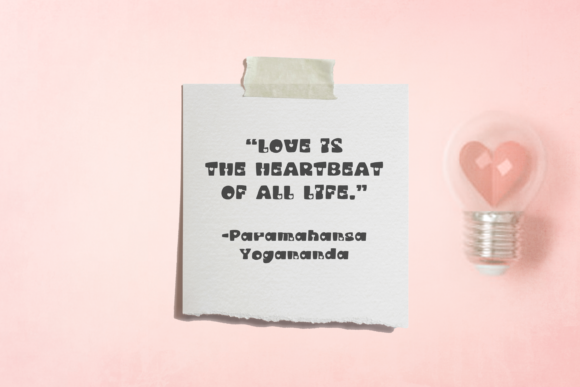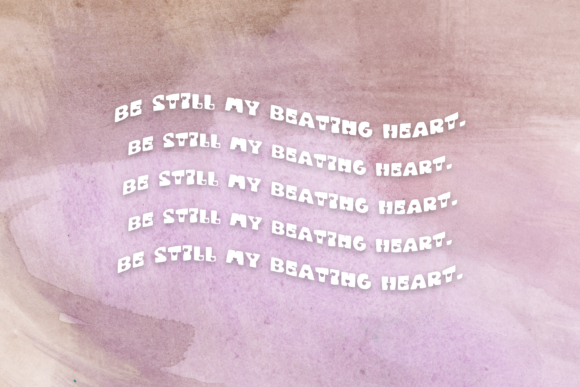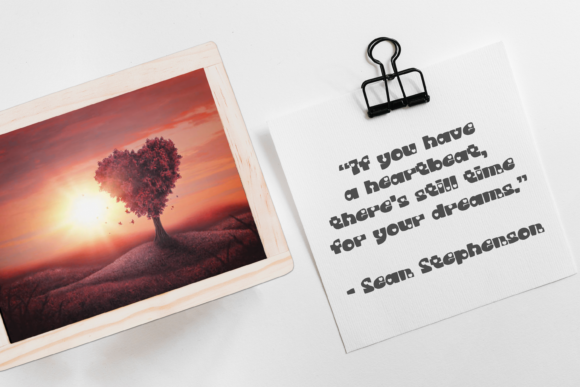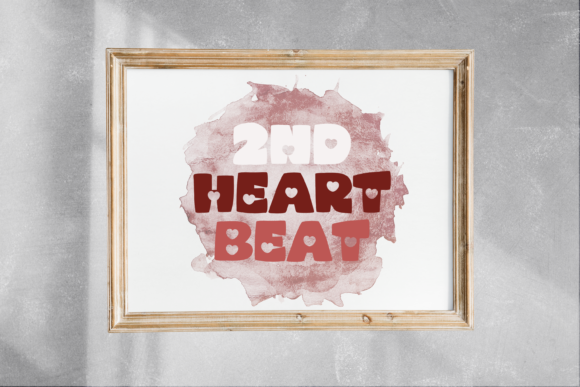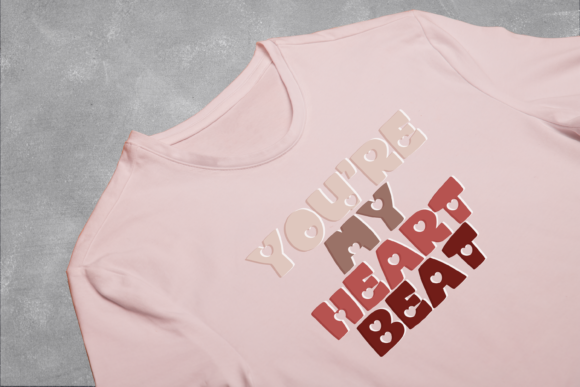
Heartbeat Font: The Lovely & Cute Display Font to Elevate Your Designs
Are you tired of using the same old fonts in your design projects? Do you want to add a touch of warmth and personality to your creations? Look no further than the Heartbeat Font, a lovely and cute display font that’s sure to capture the hearts of designers and crafters alike. In this article, we’ll dive into the world of Heartbeat Font, exploring its features, benefits, and uses, as well as provide tips on how to make the most of this beautiful font.
What is Heartbeat Font?
Heartbeat Font is a display font that exudes a warmhearted feel, making it perfect for designers and crafters who want to add a personal touch to their projects. Its incredibly cute and playful design is sure to turn any design project into a standout, whether you’re working on a logo, branding materials, social media graphics, or craft projects.
Features of Heartbeat Font
So, what makes Heartbeat Font so special? Here are just a few of its key features:
- Unique and playful design: Heartbeat Font boasts a one-of-a-kind design that’s both fun and playful, making it perfect for projects that require a touch of whimsy.
- Warmhearted feel: The font’s warm and inviting feel makes it ideal for projects that require a personal touch, such as greeting cards, invitations, and social media graphics.
- Highly versatile: Heartbeat Font can be used for a wide range of design projects, from logos and branding materials to craft projects and more.
- Easy to read: Despite its playful design, Heartbeat Font is easy to read, making it perfect for use in both digital and print materials.
Benefits of Using Heartbeat Font
So, why should you choose Heartbeat Font for your design projects? Here are just a few benefits of using this lovely font:
- Adds a personal touch: Heartbeat Font’s warmhearted feel adds a personal touch to any design project, making it perfect for designers and crafters who want to create unique and engaging materials.
- Stand out from the crowd: With its unique and playful design, Heartbeat Font is sure to help your design projects stand out from the crowd.
- Perfect for crafty projects: Heartbeat Font is a great choice for crafty projects, such as handmade cards, DIY decorations, and more.
Using Heartbeat Font in Your Design Projects
So, how can you use Heartbeat Font in your design projects? Here are a few ideas to get you started:
- Logos and branding materials: Use Heartbeat Font to create a unique and memorable logo or branding materials that showcase your personality and style.
- Social media graphics: Add a personal touch to your social media graphics, such as Facebook posts, Instagram stories, and more, with Heartbeat Font.
- Greeting cards and invitations: Use Heartbeat Font to create beautiful and heartfelt greeting cards and invitations that are sure to impress.
- Craft projects: Add a touch of whimsy to your craft projects, such as handmade cards, DIY decorations, and more, with Heartbeat Font.
Tips for Getting the Most out of Heartbeat Font
Here are a few tips for getting the most out of Heartbeat Font:
- Experiment with different colors: Heartbeat Font looks great in a variety of colors, so don’t be afraid to experiment and find the perfect hue for your design project.
- Pair with other fonts: Heartbeat Font pairs well with other fonts, so try combining it with a sans-serif font for a unique and interesting look.
- Use it sparingly: While Heartbeat Font is a beautiful font, it can be overwhelming if used too much. Use it sparingly to add a touch of personality to your design project.
In conclusion, Heartbeat Font is a lovely and cute display font that’s perfect for designers and crafters who want to add a personal touch to their projects. With its unique and playful design, warmhearted feel, and high versatility, Heartbeat Font is sure to turn any design project into a standout. So why not give it a try and see the difference it can make in your designs?